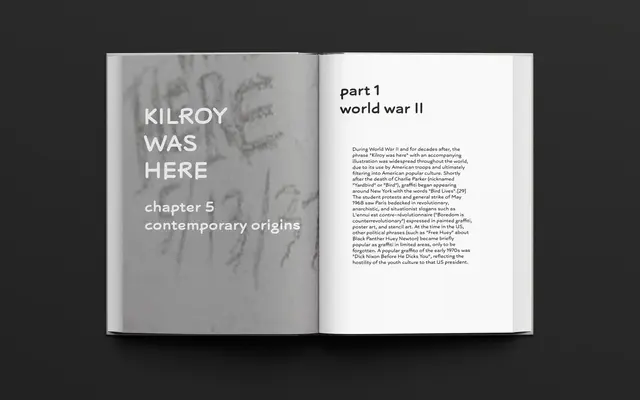
A monolinear hand-drawn script rooted in 1960s architectural drafting handwriting, originated with a Copic marker pen and refined digitally.
Drawn with a Copic 1.0 Multiliner pen and traced digitally via stylus and tablet, Kopik retains the casual rhythm of draftsman lettering whilst smoothing out imperfections. Three weights run from Light to Bold with matching italics, each containing 440 characters including alternate forms for a, g and y, plus four numeral variants. OpenType features cover inferiors, superiors and fractions, with language support across Western, Southern and Central European Latin.
Described as a hand-drawn script inspired by 1960s architectural drafting handwriting, drawn with a Copic marker pen and traced digitally; monolinear and casual rather than formal calligraphic script.